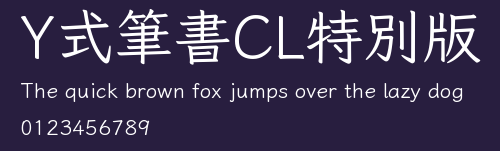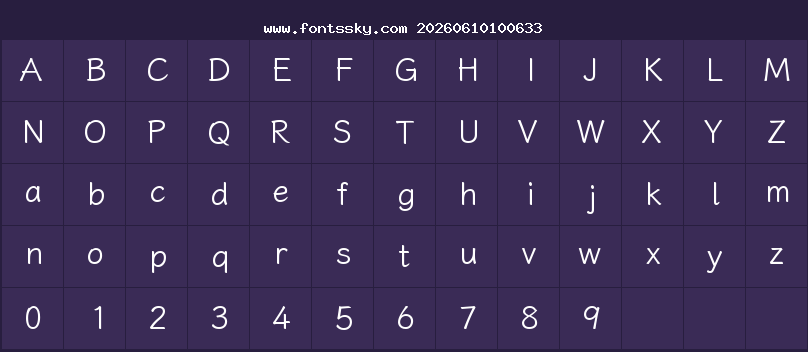
• Font Name: Y式筆書CL特別版
• Font ID: YShiPen-ShutiCL S:Version 0.101
• Full Font Name: Y式筆書CL特別版
• Version: Version 0.101;July 20, 2024;FontCreator 14.0.0.2901 64-bit
• PostScript Name: YShiPenShutiCLS
• Character Count: 32121
• Copyright: STEVE YUU BASED ON Copyright 2022 LXGW (https://github.com/lxgw/LxgwWenkaiTC) Copyright 2020 The Klee Project Authors (https://github.com/fontworks-fonts/Klee)
• Designer: Fontworks Inc.
About Y式筆書CL特別版.ttf
Y式筆書CL特別版.ttf is a modern, elegant sans-serif font designed for ultimate readability and visual harmony. Perfect for branding, headlines, web design, and print materials.